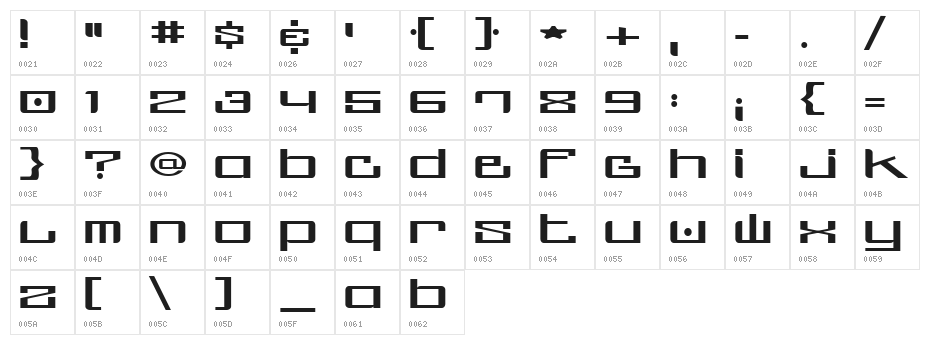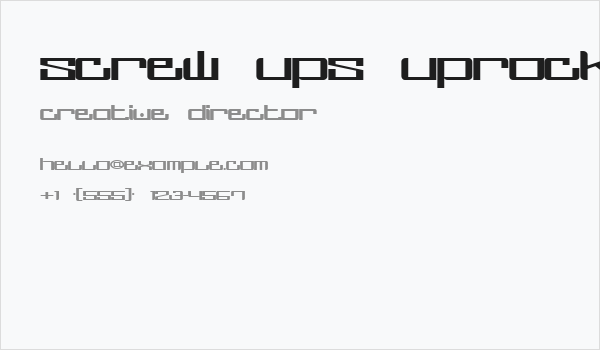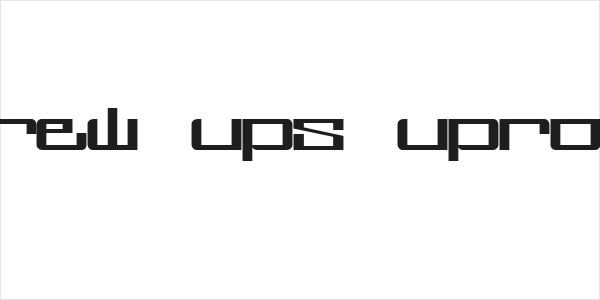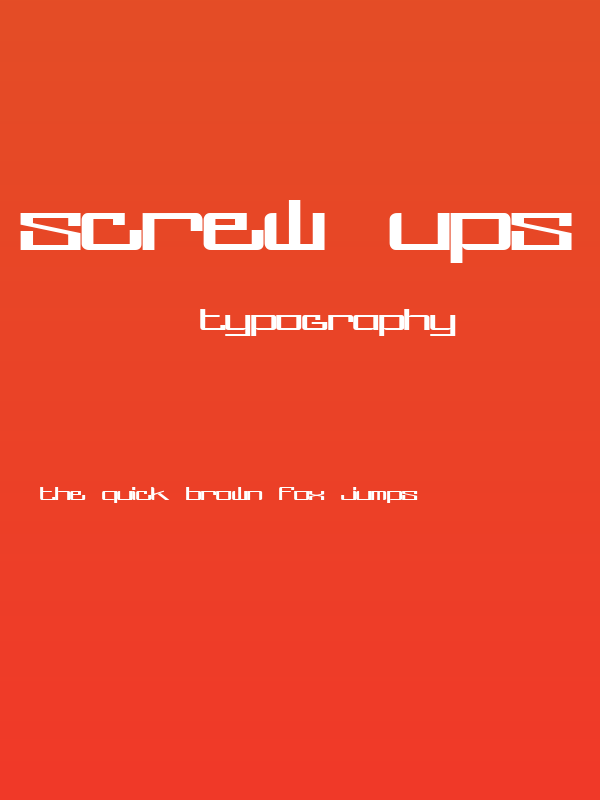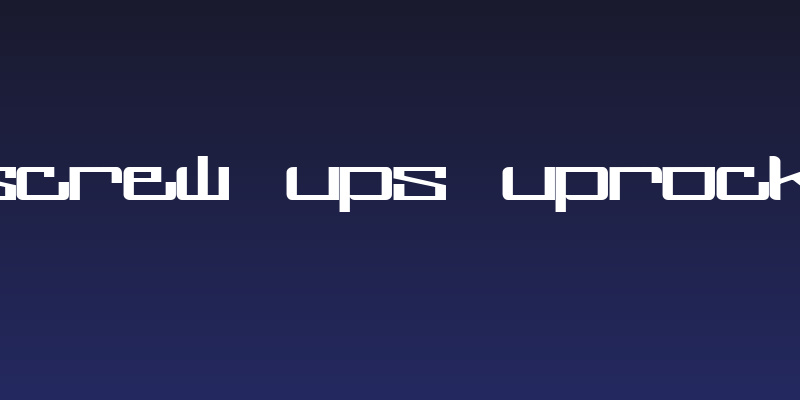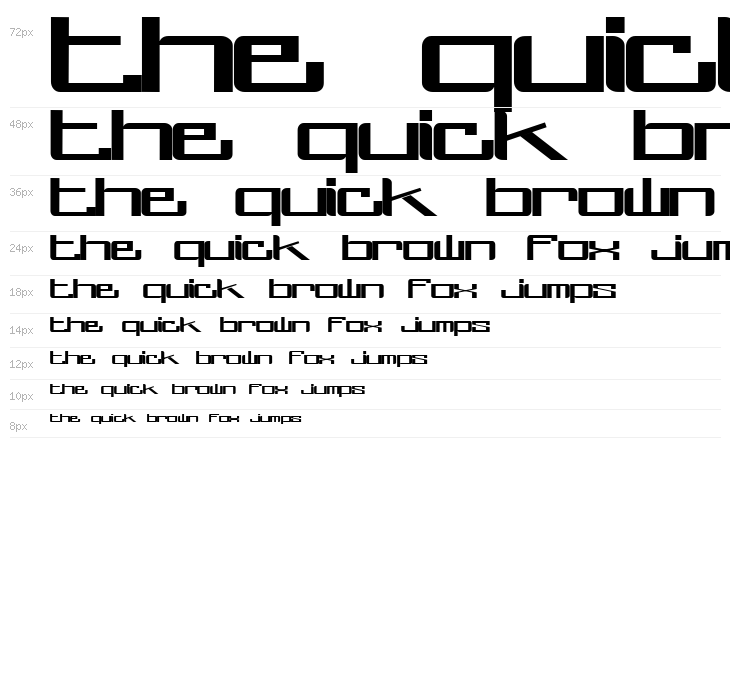
screw ups uprock Font
screw ups uprock Description
This font features a bold, geometric design with a futuristic and digital aesthetic. The characters are constructed with sharp angles and straight lines, giving it a mechanical and structured appearance. The uppercase and lowercase letters share a consistent height, contributing to a uniform look. The numerals and special characters maintain the same angular style, enhancing the cohesive design. This font's unique style makes it stand out, with a modern and tech-inspired vibe that is ideal for digital and creative projects.